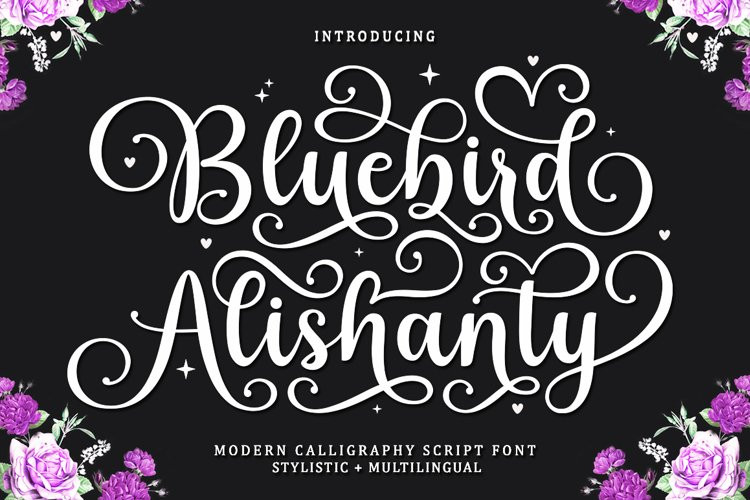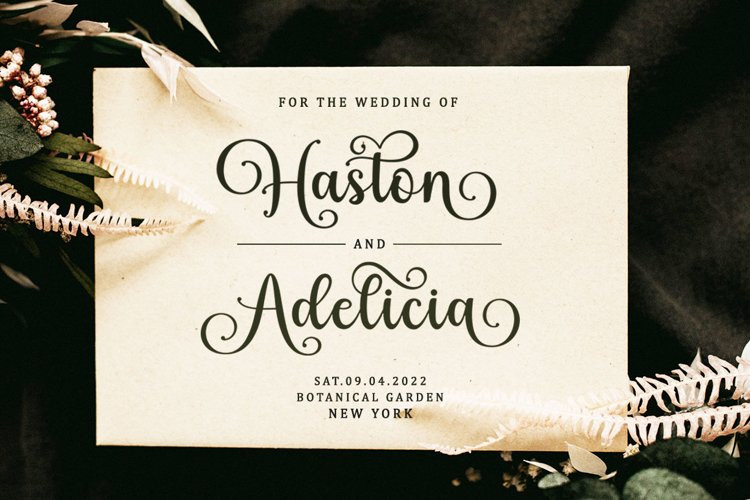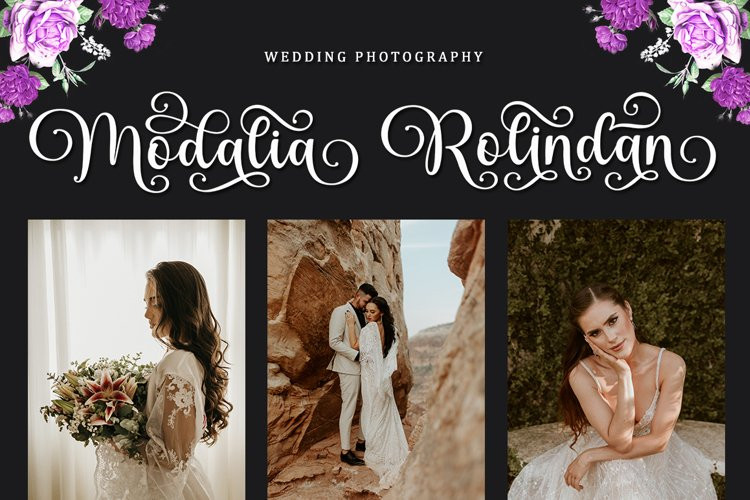
Bluebird Alishanty Font
Bluebird Alishanty FontBluebird Alishanty is a very cute, elegant and unique handwritten font. Expertly designed to be a true favourite, this font has the potential to take any of your creative ideas to the highest level!
Bluebird Alishanty is attractive because it is sleek, clean, feminine, sensual, glamorous, simple and very easy to read, thanks to its many luxurious letter connections. I also offer a decent number of style alternatives for all letters. The classic style is very suitable to be applied in various formal forms such as invitations, labels, restaurant menus, logos, fashion, make up, stationery, novels, magazines, books, greeting/wedding cards, packaging, labels or all kinds of advertising for your purposes. . . . .